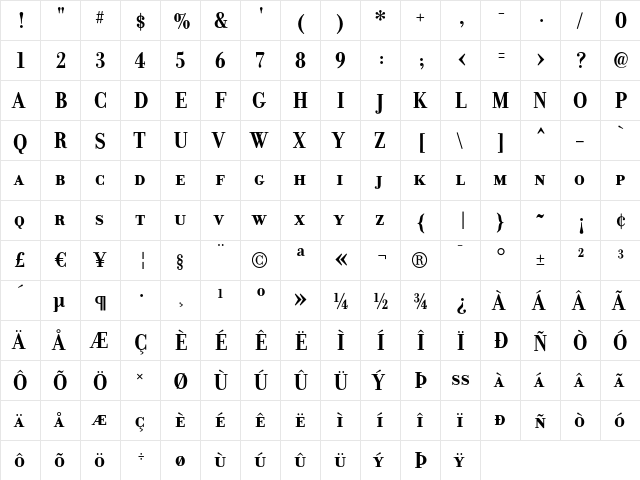
DonatoraSC Bold
Design Context for DonatoraSC Typeface
DonatoraSC offers clean, dependable letterforms without strong stylistic allegiance, making it a practical choice for designers who need flexibility. Its bold stroke weight gives it real presence on the page.
Pro Tip: Pair DonatoraSC with a font of contrasting weight or personality to build a more expressive typographic hierarchy.